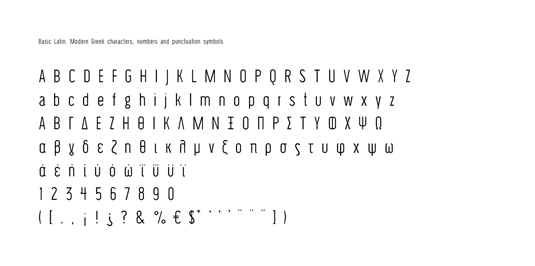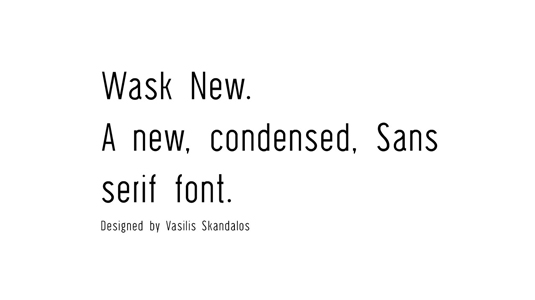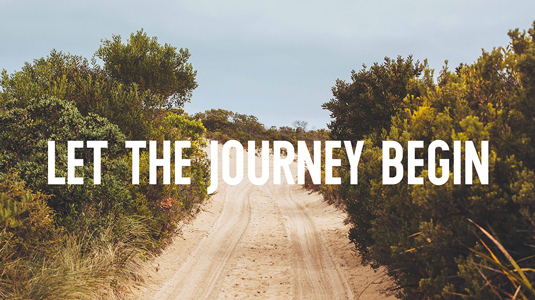
Font of the day: Wask New
Every day we showcase the best fonts on the web. Today it's Wask New by Vasilis Skandalos, which is totally free to download.
Wask New by Vasilis Skandalos
Graphic designer and illustrator Vasilis Skandalos is the man behind today's typeface of choice, Wask New. "Wask started a few months ago as a condensed, sans serif font for business purposes, advertising, packaging and publications," Skandalos comments on Behance.